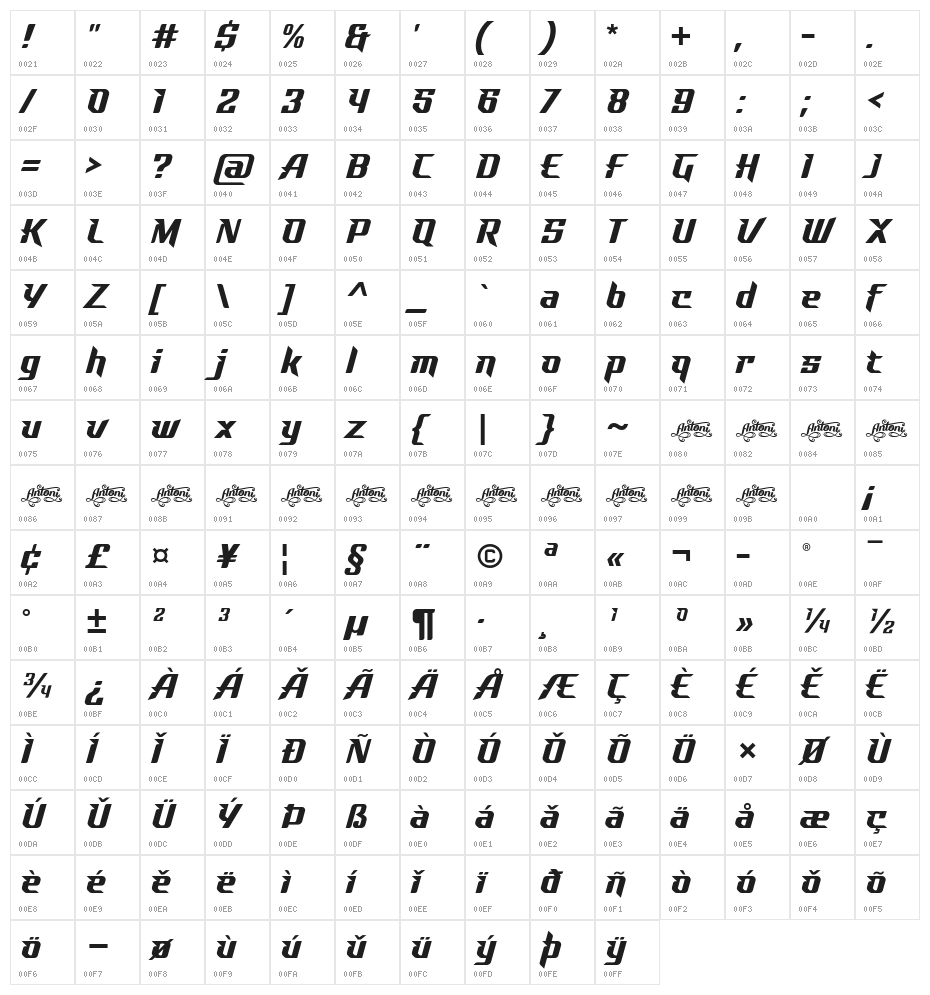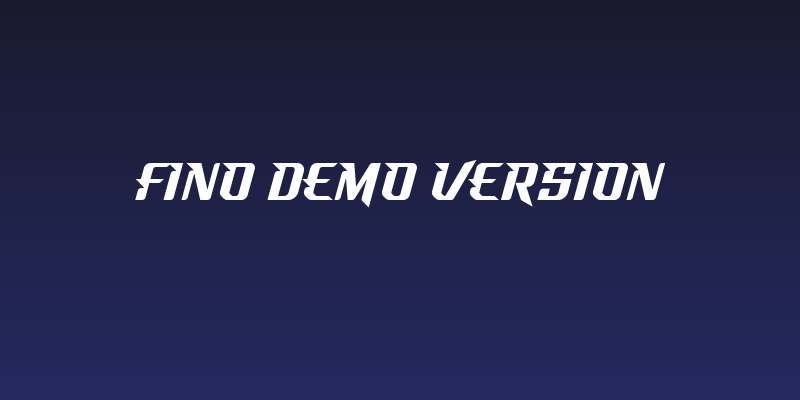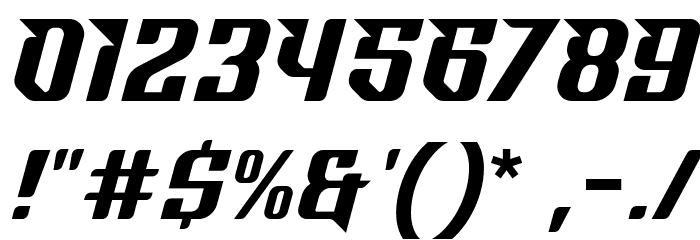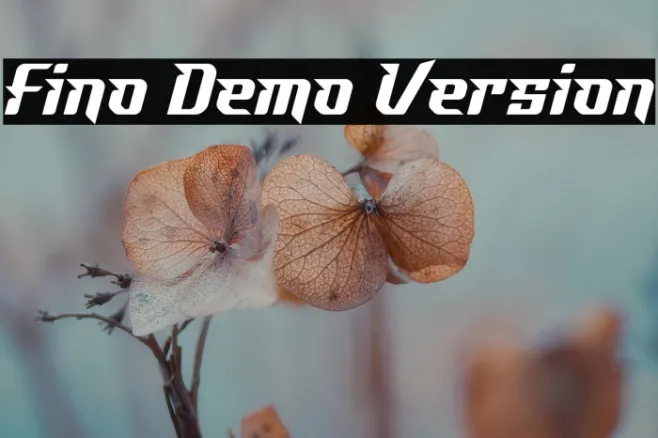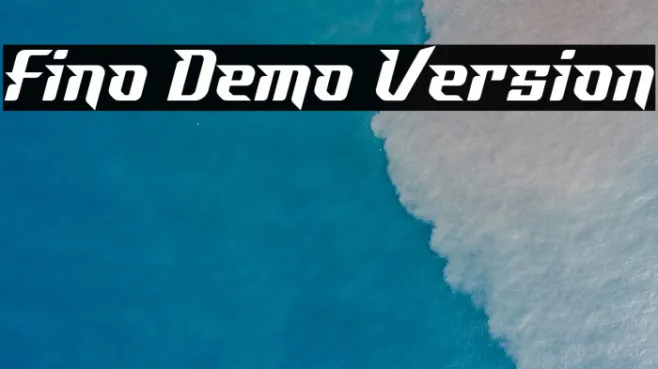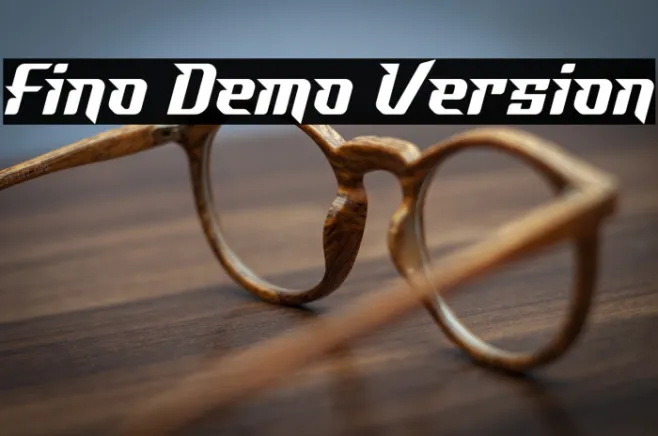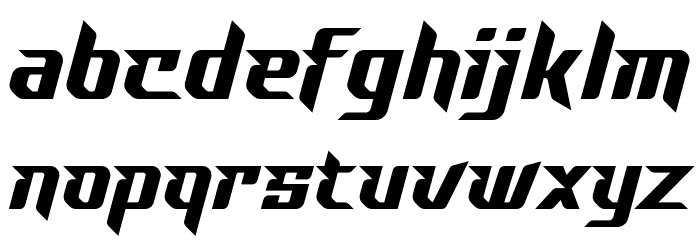
Fino Demo Version Font
Fino Demo Version Description
This font features a bold and dynamic design with sharp, angular edges and a forward-leaning stance, giving it a sense of motion and energy. The uppercase letters are particularly striking, with their geometric forms and strong presence. The lowercase letters maintain the same angular style, ensuring consistency throughout the typeface. Numbers and special characters are designed to match the overall aesthetic, making them suitable for a variety of uses. The font's unique style makes it ideal for projects that require a modern and edgy look, such as sports branding, music album covers, or dynamic posters.
| Proposed Projects | Ideal for sports branding, music album covers, dynamic posters, and edgy graphic designs. |